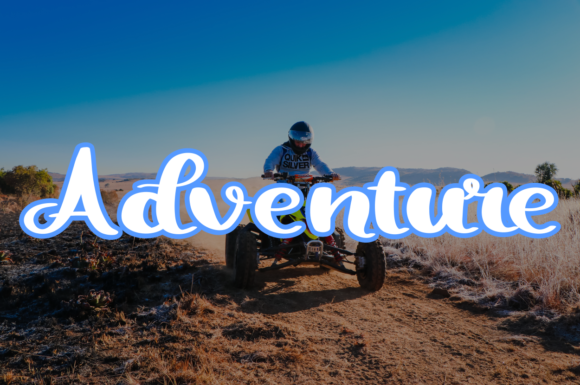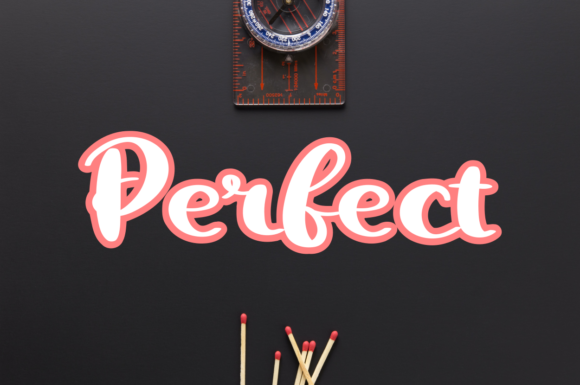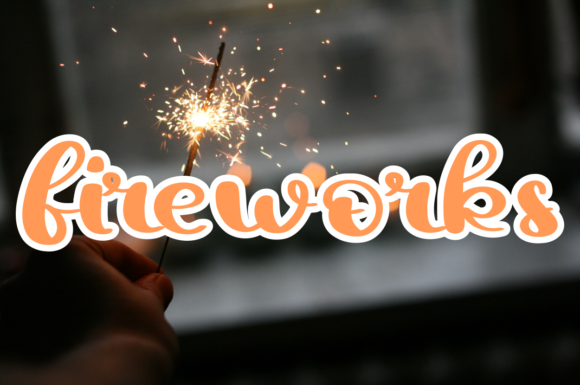
The Fabulous Font: A Cute and Charming Display Font to Brighten Up Your Designs
I’ll never forget the moment I stumbled upon the Fabulous font. I was working on a project for a client who wanted a whimsical and playful design, but I was struggling to find the perfect font to match their vision. That’s when I discovered Fabulous, a cute and charming display font that instantly brightened up my design. In this article, I’ll share my experience with Fabulous, its features, and how to make the most of it in your designs.
My Honest Review of Fabulous Font
As a designer, I’m always on the lookout for fonts that can add a touch of personality to my designs. Fabulous font did not disappoint! Here’s what I love about it:
- ✨ Cute and charming: Fabulous font has a unique and playful style that can add a touch of whimsy to any design.
- ✅ Easy to read: Despite its playful style, Fabulous font is surprisingly easy to read, even in smaller sizes.
- 💫 Versatile: Fabulous font can be used for a wide range of designs, from children’s books to social media graphics.
However, like any font, Fabulous has its quirks:
- 🤔 Limited use cases: While Fabulous font is perfect for display purposes, it may not be the best choice for body text or long-form content.
- ⚠️ Glyph limitations: Fabulous font has a limited set of glyphs, which may not be sufficient for designs that require a wide range of special characters.
The Backstory of Fabulous Font
Fabulous font was designed by a team of typographers who wanted to create a font that would add a touch of whimsy and playfulness to designs. Inspired by classic children’s books and playful typography, Fabulous font was born. With its cute and charming style, Fabulous font has become a popular choice among designers and crafters.
| Font Name | Fabulous Font |
| Author | Halo Whimsy Creative |
| What is Fabulous font? | Fabulous font is a cute and charming display font designed for creative projects. |
| What is Fabulous font used for? | Fabulous font is perfect for designs that require a touch of whimsy and playfulness, such as children’s books, social media graphics, and craft projects. |